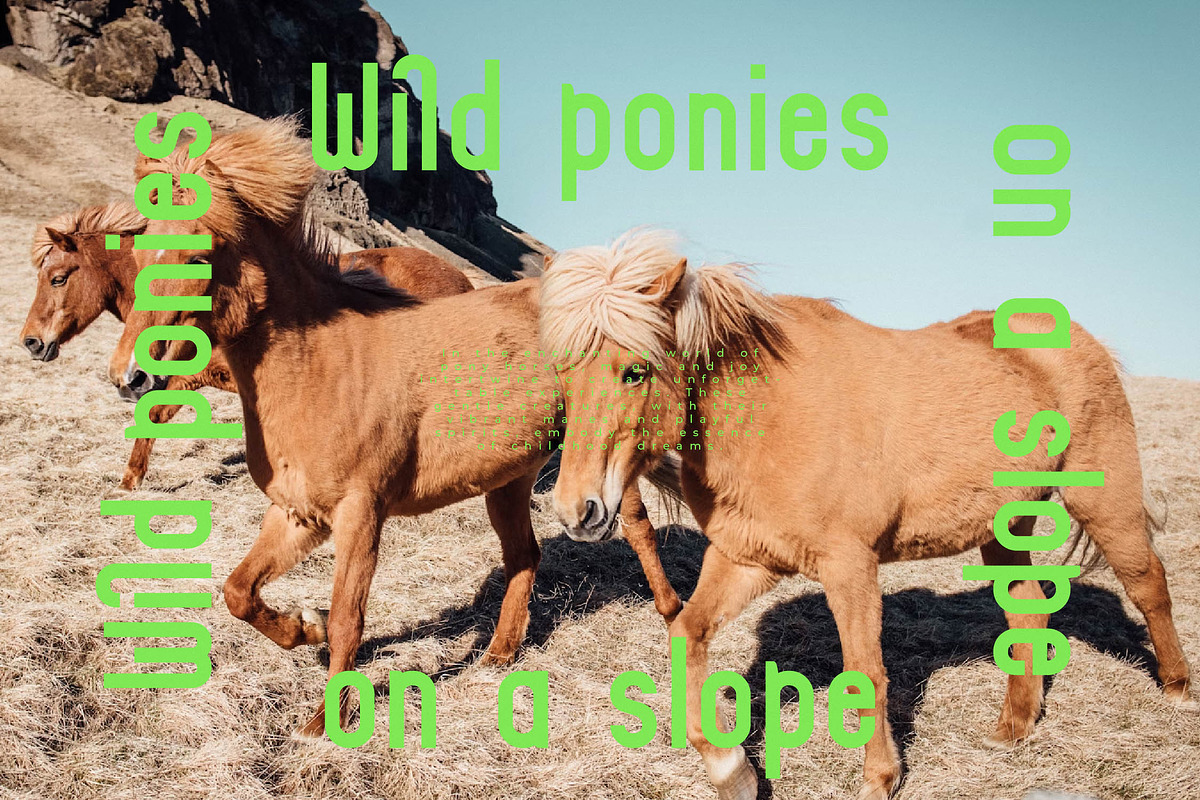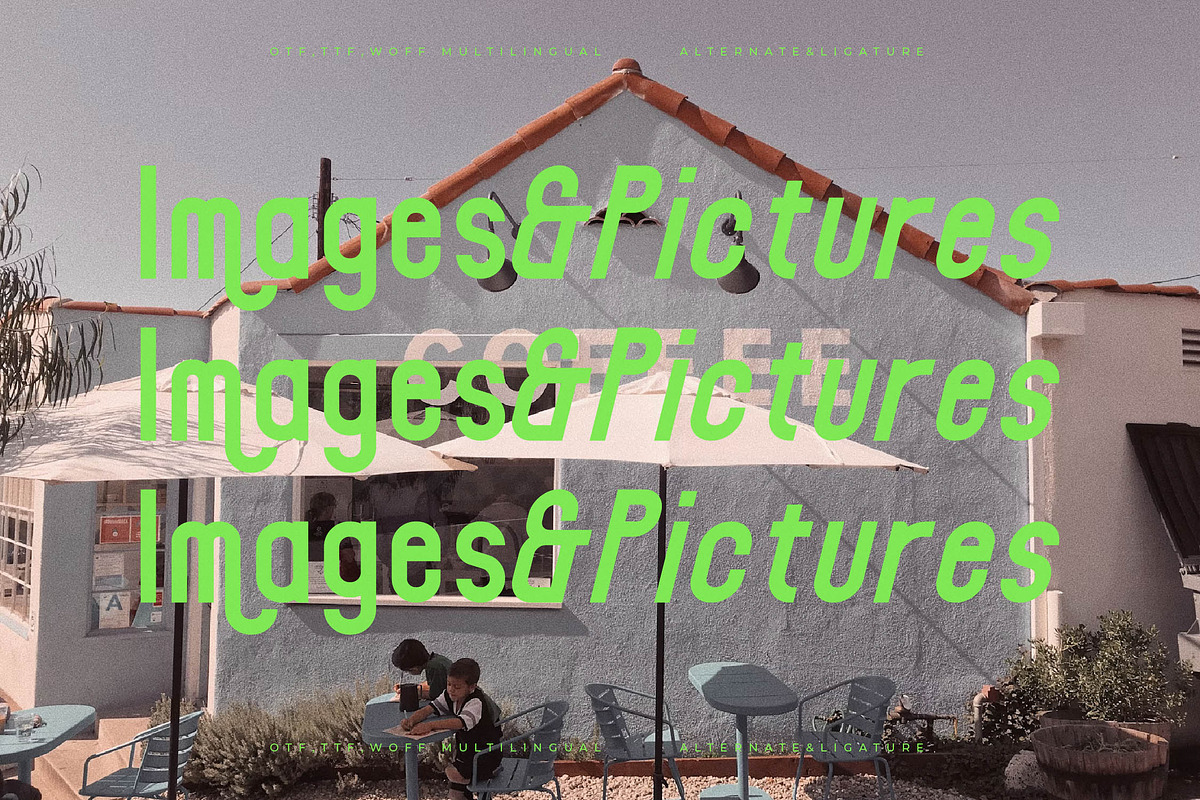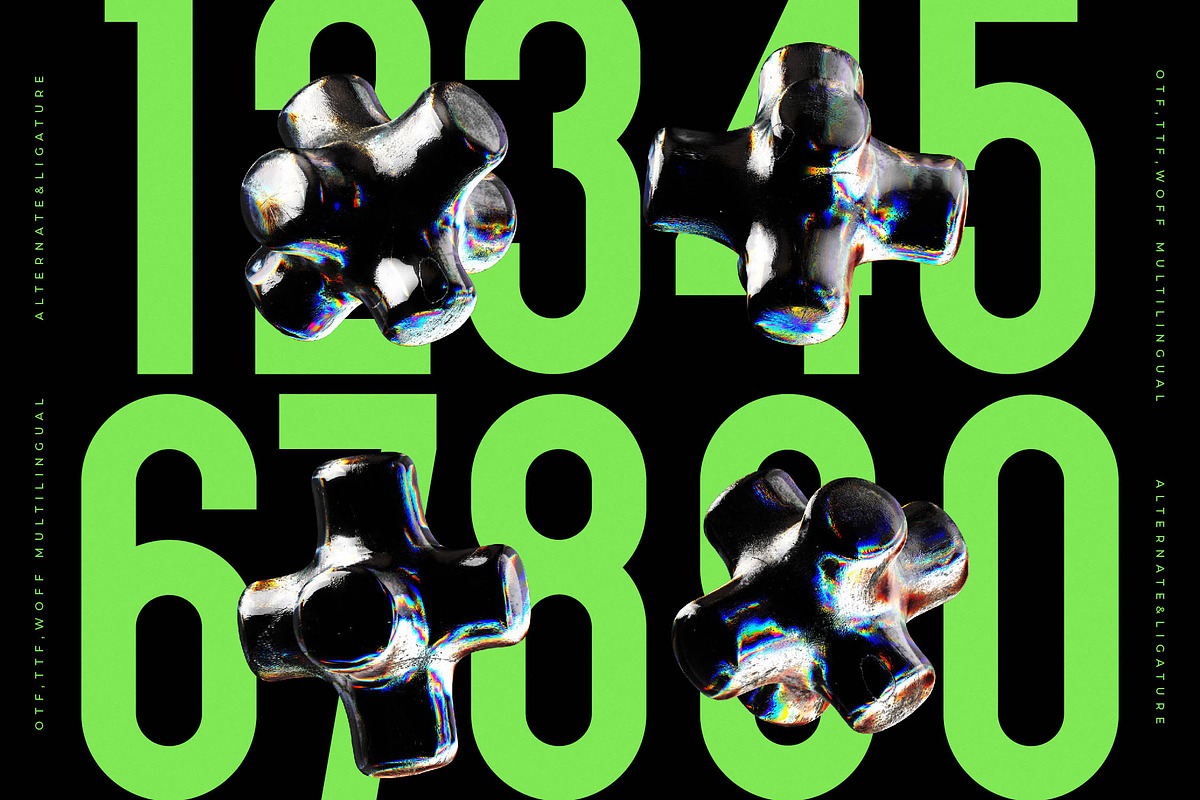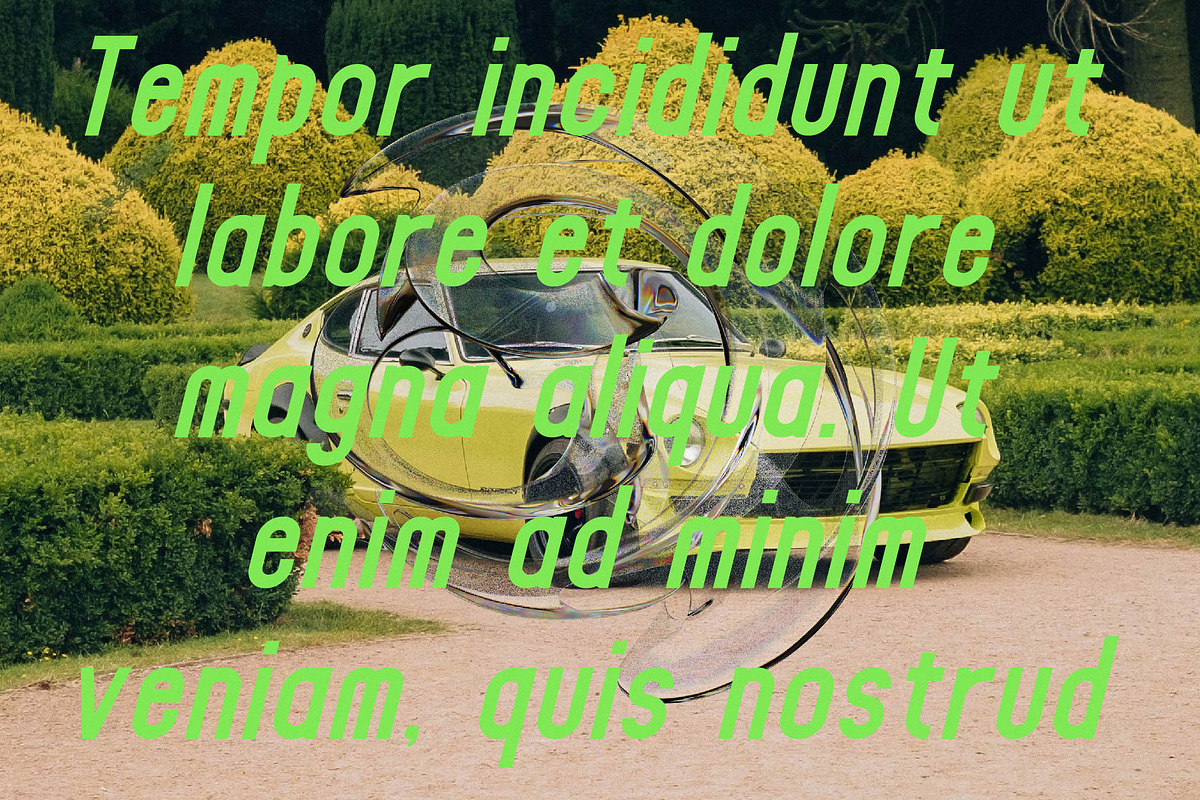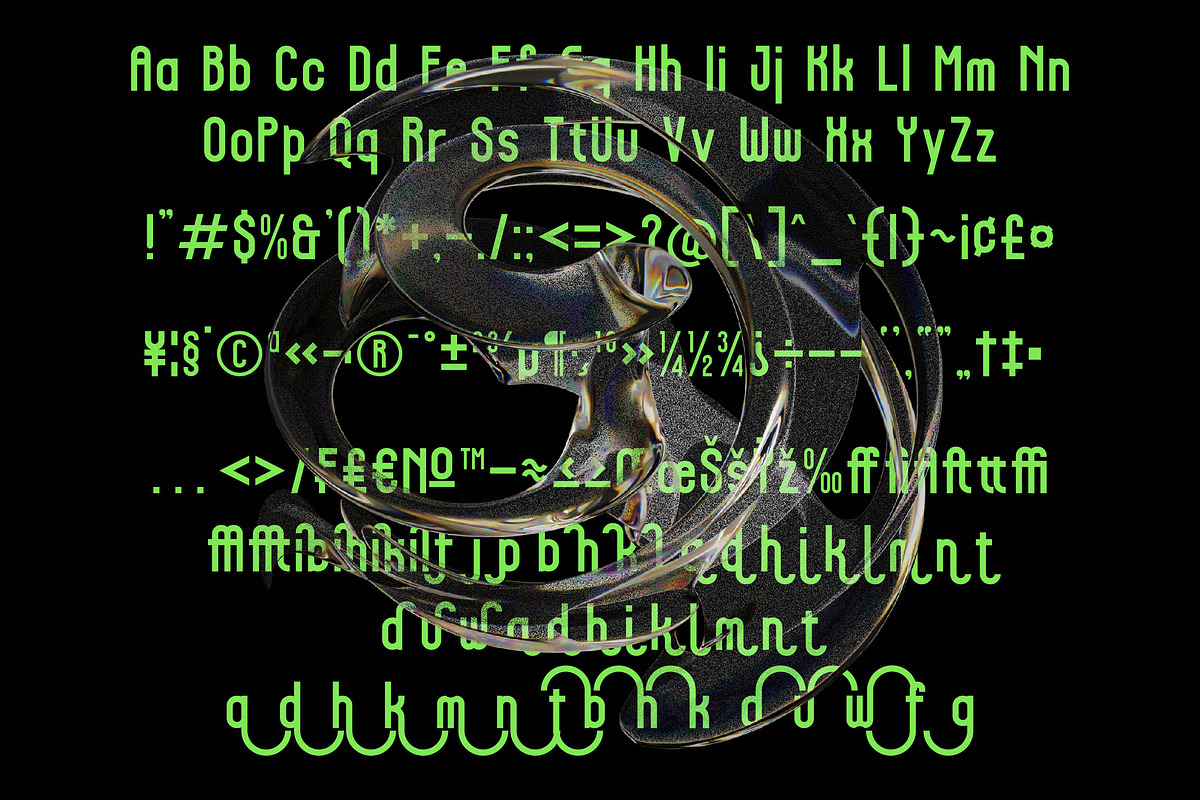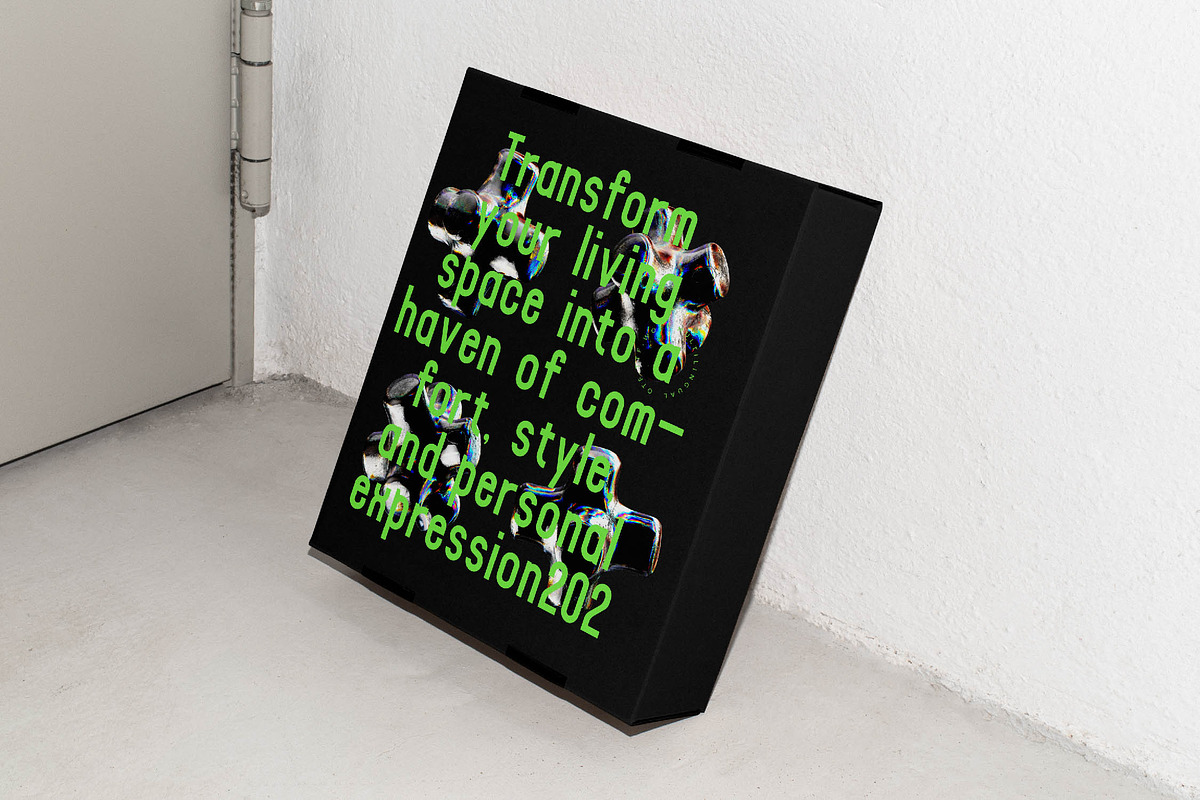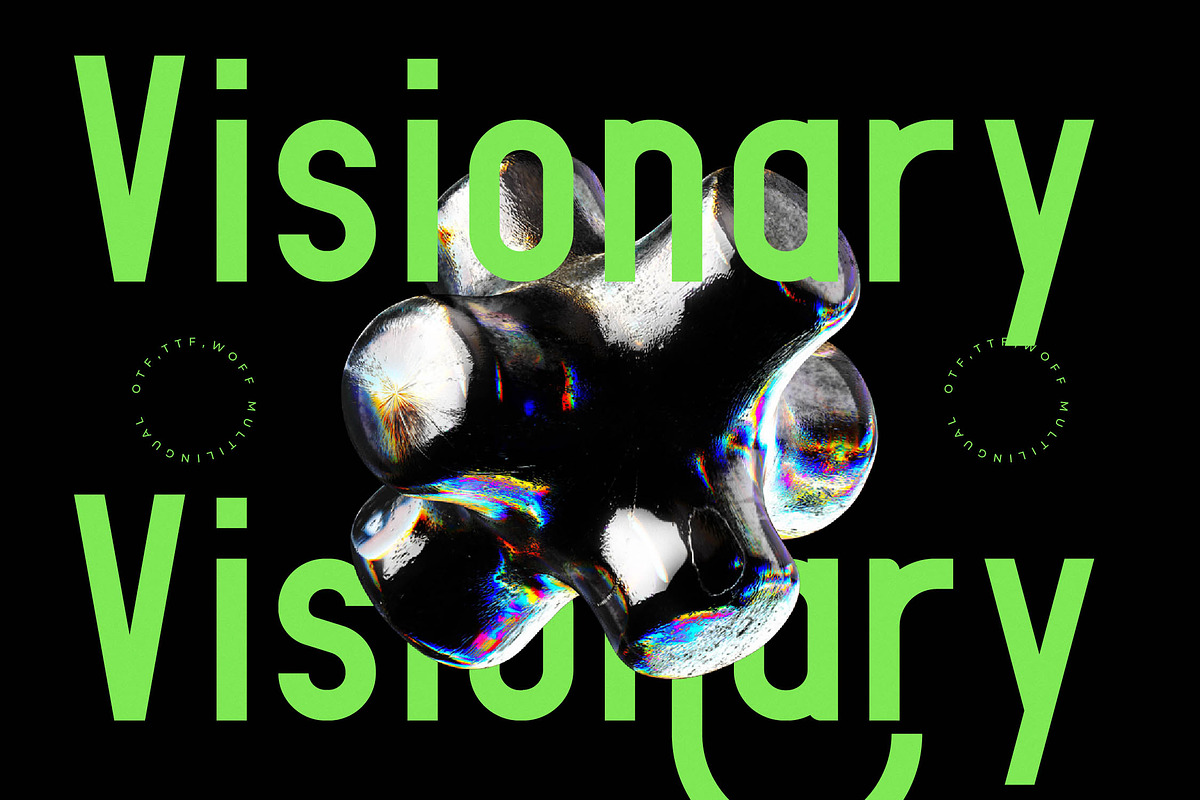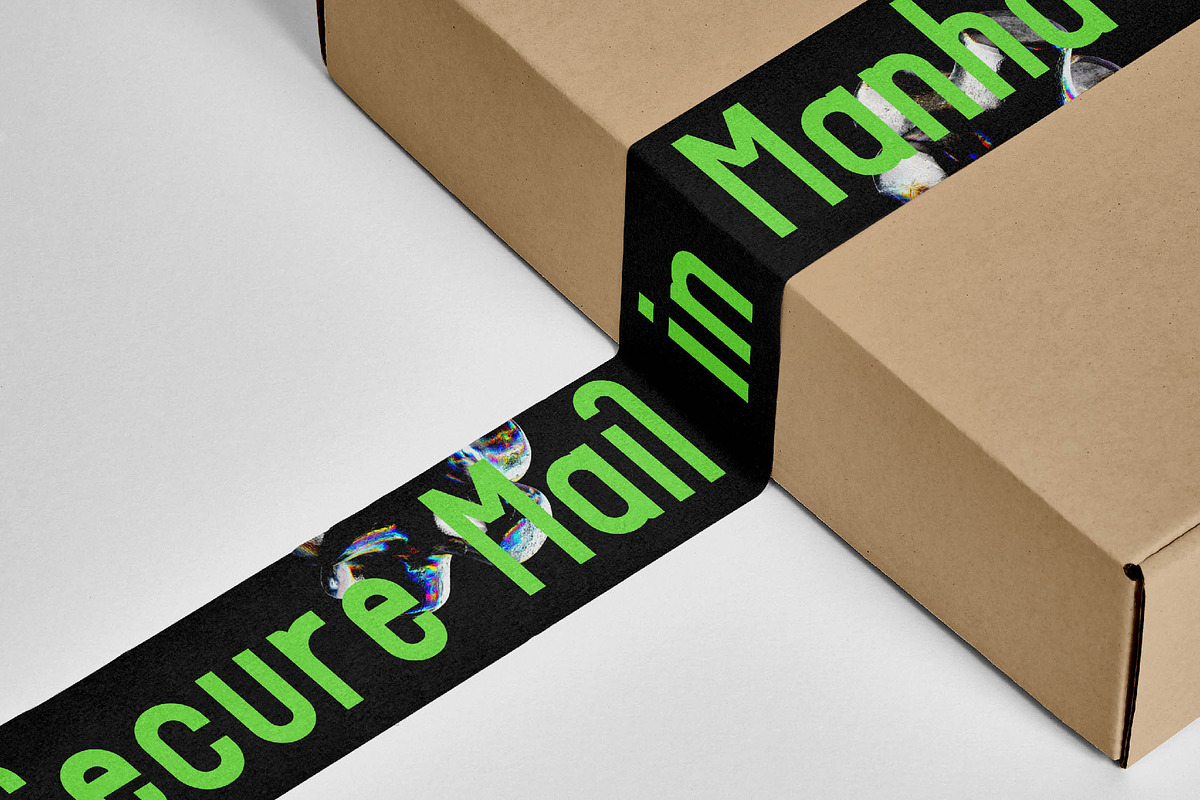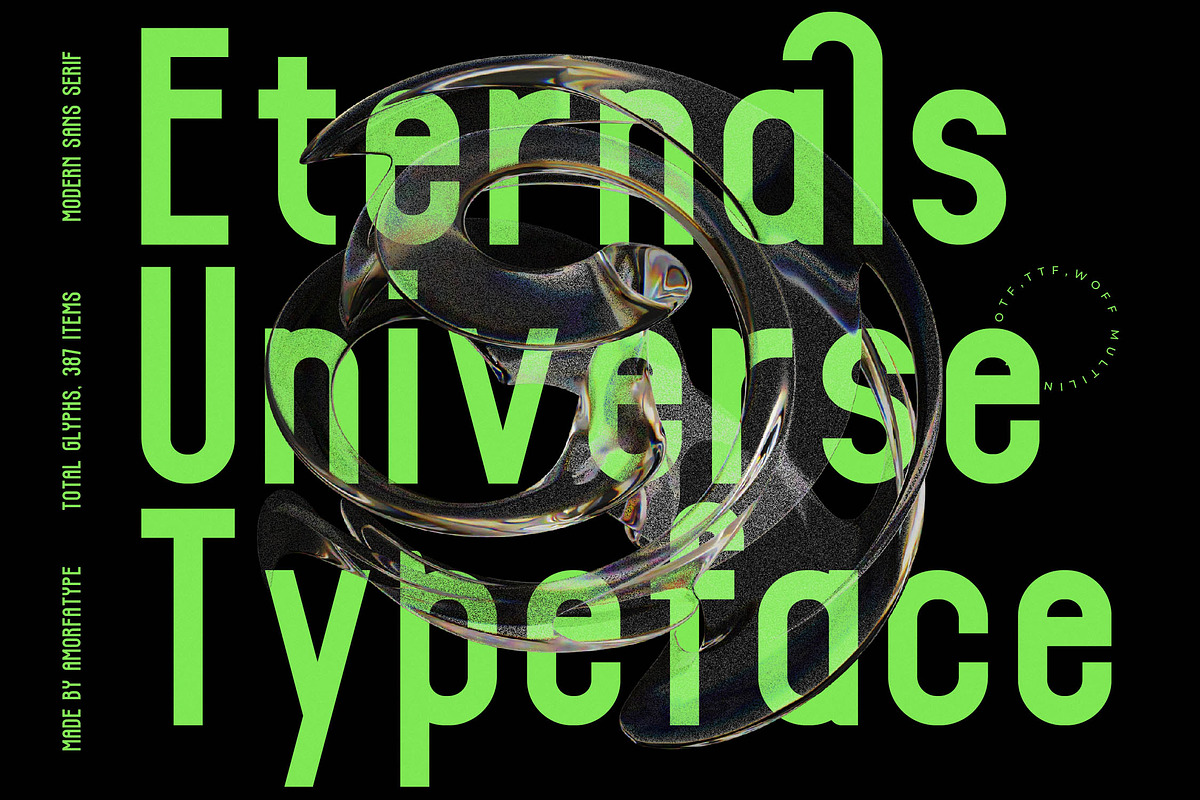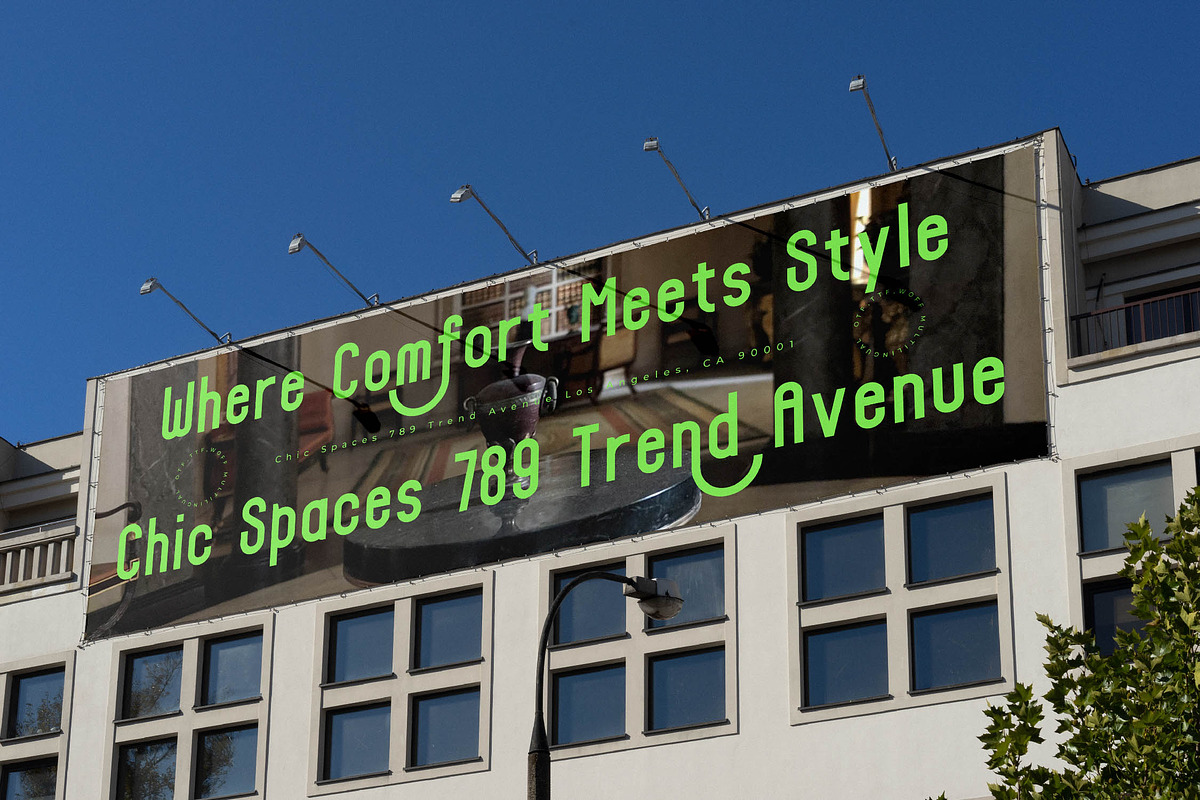
Eternals Universe Modern Sans Serif
Eternals Universe: A Modern Alternate Sans Serif Font by Amorfatype
Eternals Universe embodies the essence of modern minimalism with a touch of cosmic flair. This alternate sans serif font features clean lines and geometric forms, creating a striking visual impact that is both contemporary and versatile. Each character is meticulously designed to ensure clarity and readability while maintaining an innovative aesthetic.
Perfect for a wide range of applications—from futuristic branding and tech-focused projects to sleek editorial layouts—Eternals Universe infuses your designs with a sense of modernity and sophistication. Elevate your work with this dynamic font, bringing a unique and polished edge to every project.
- Ligatures, Alternates & Swashes